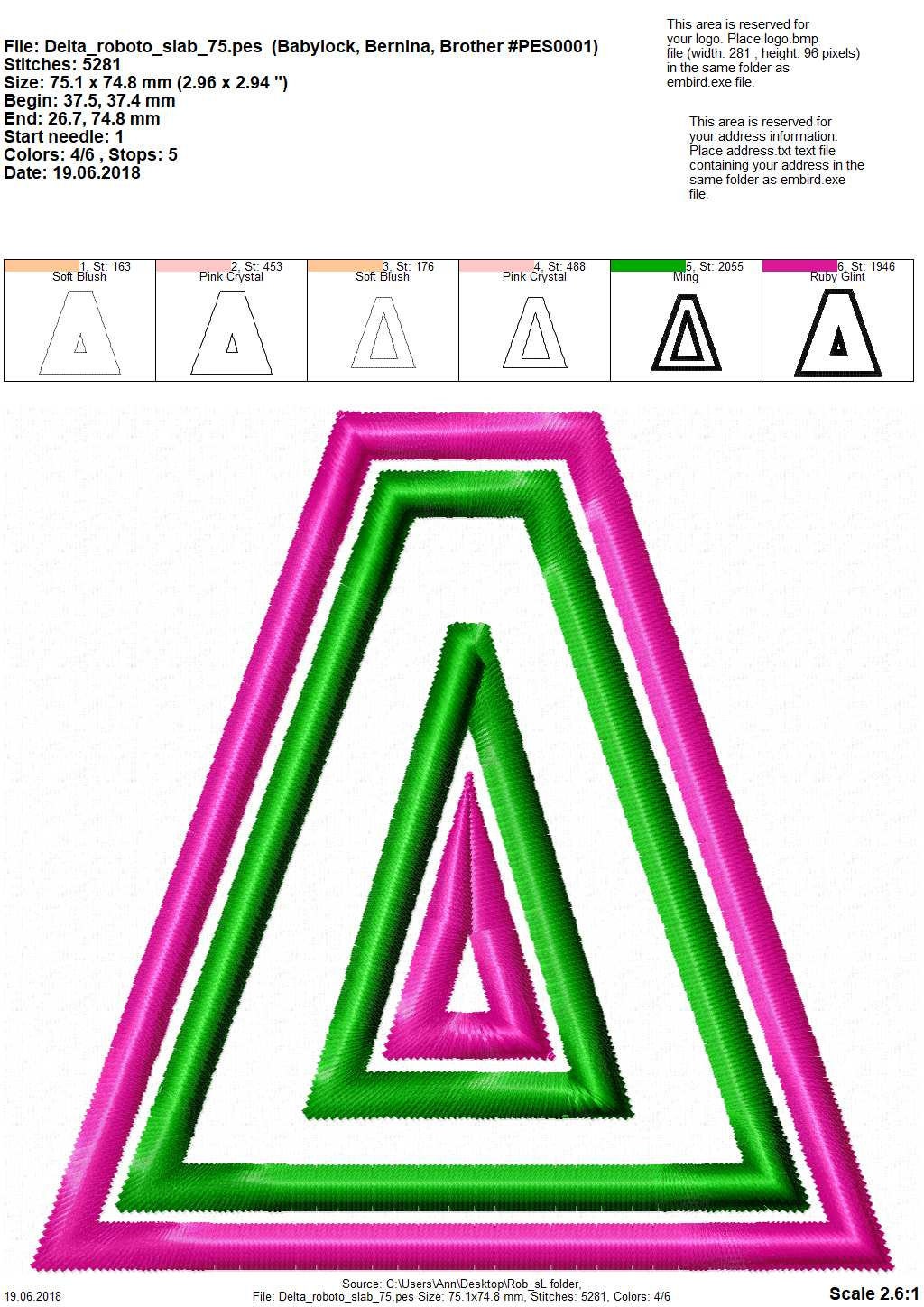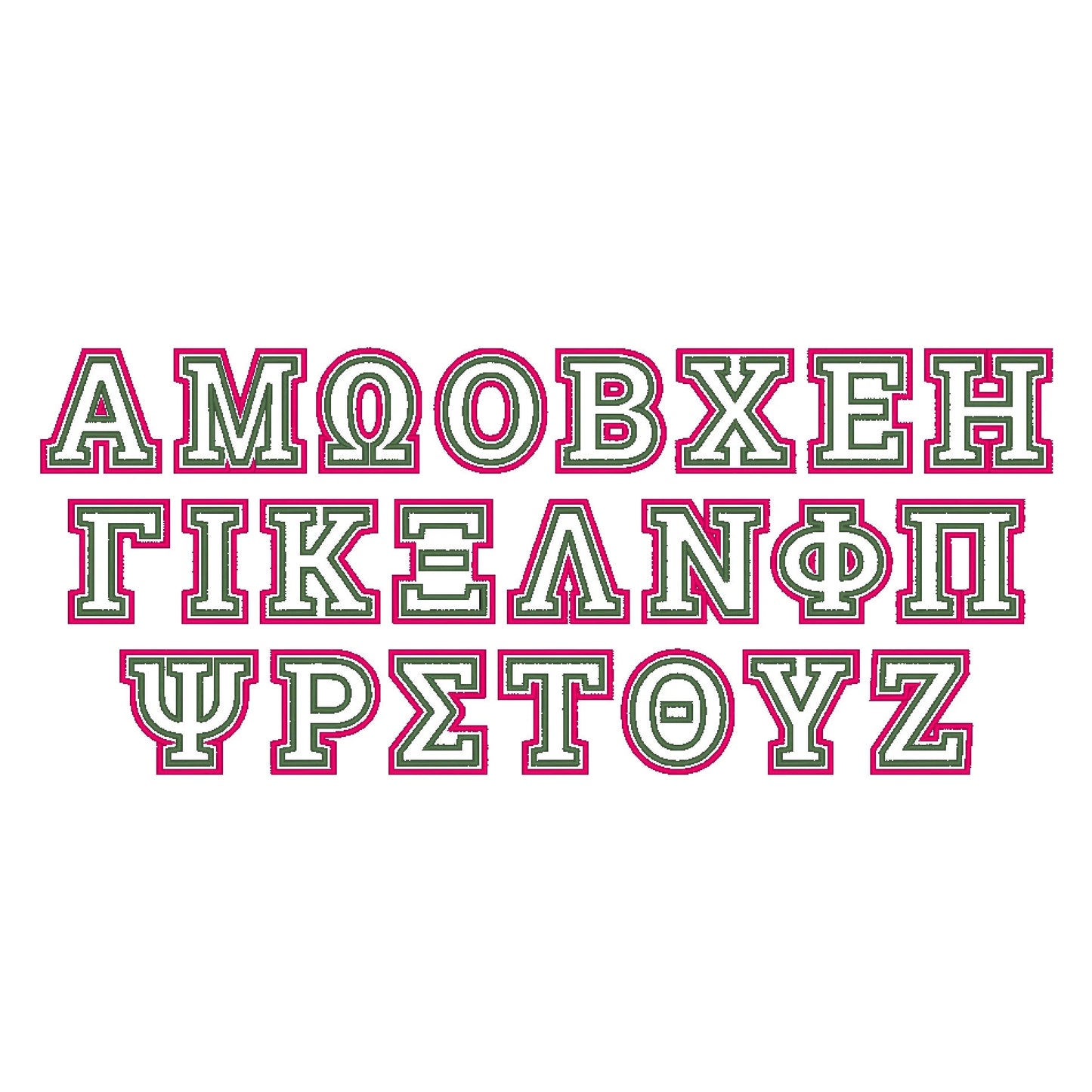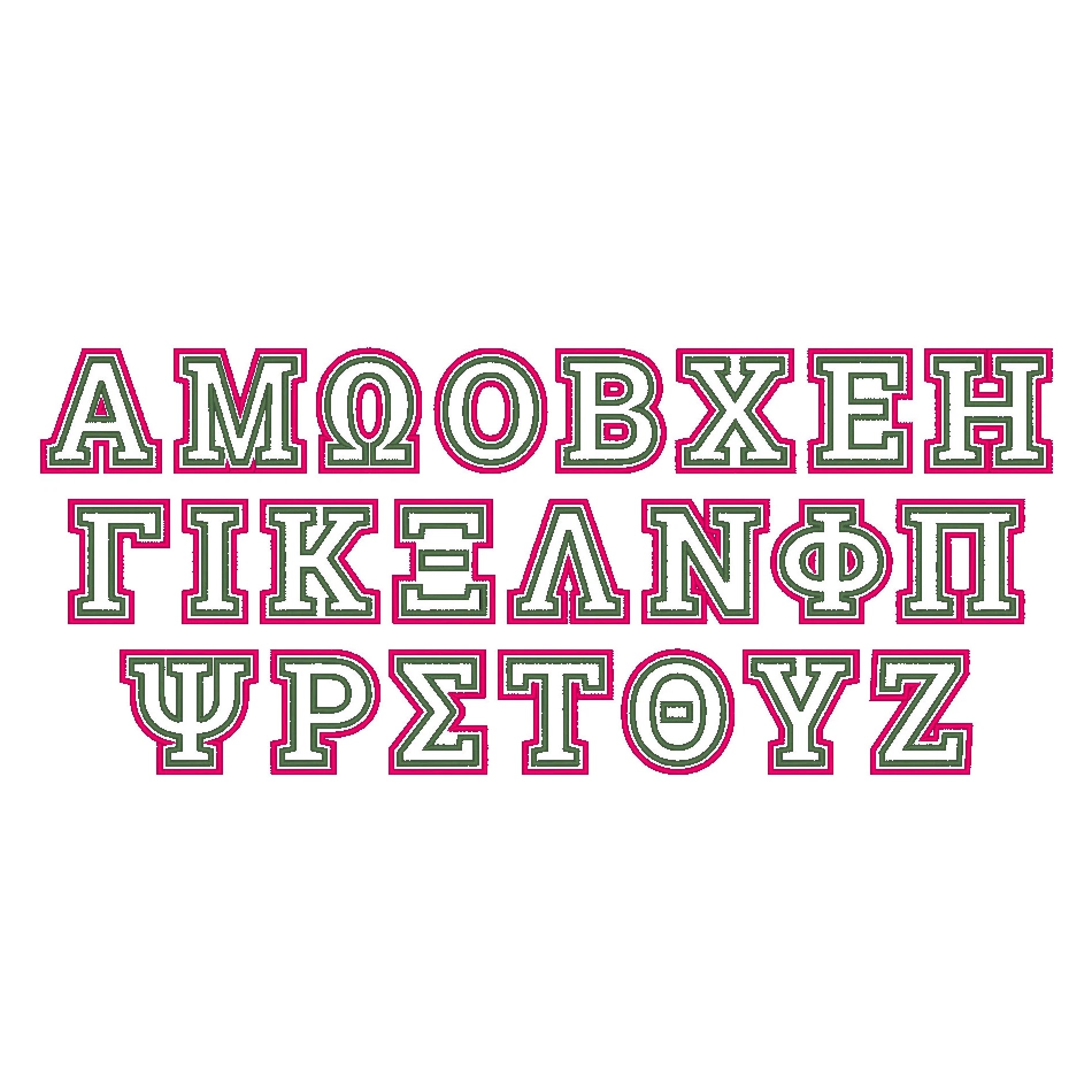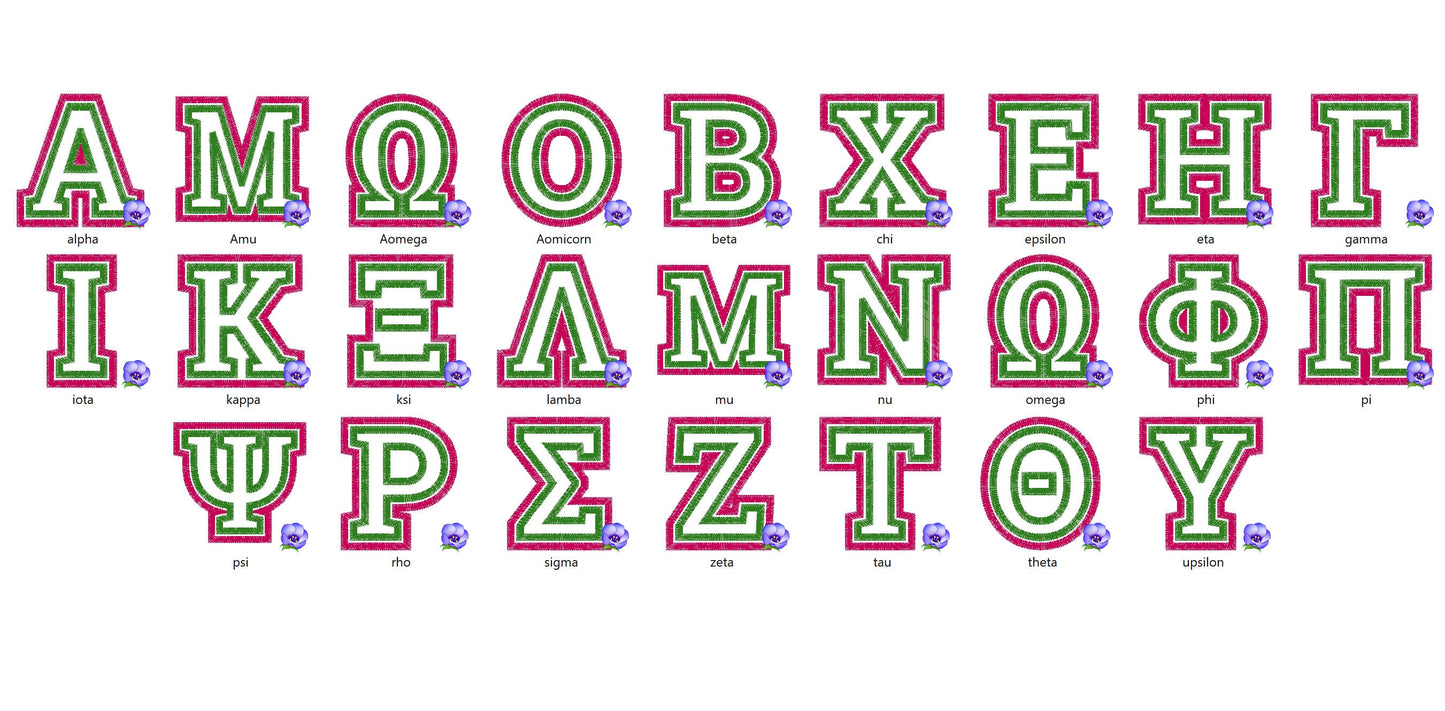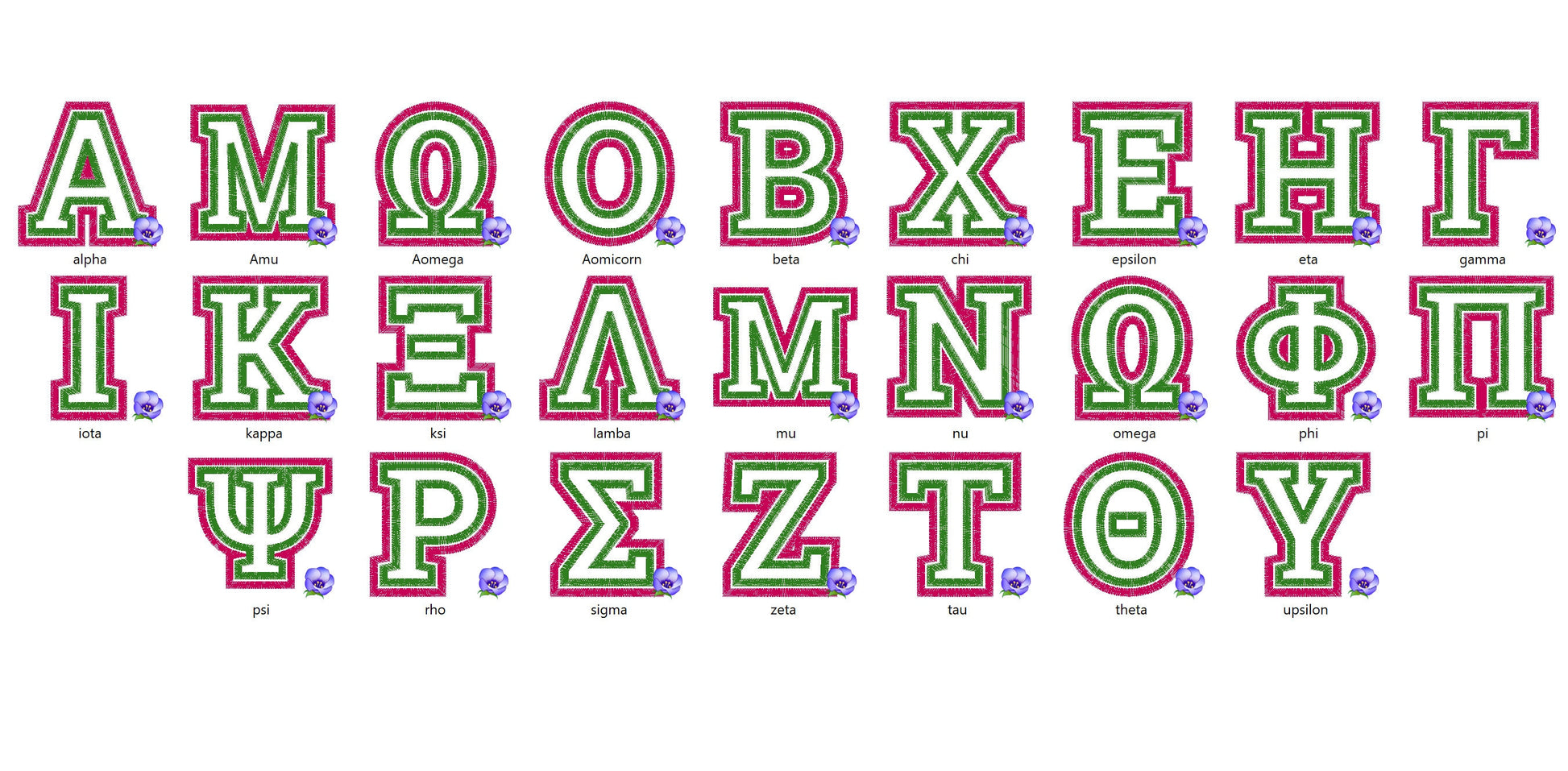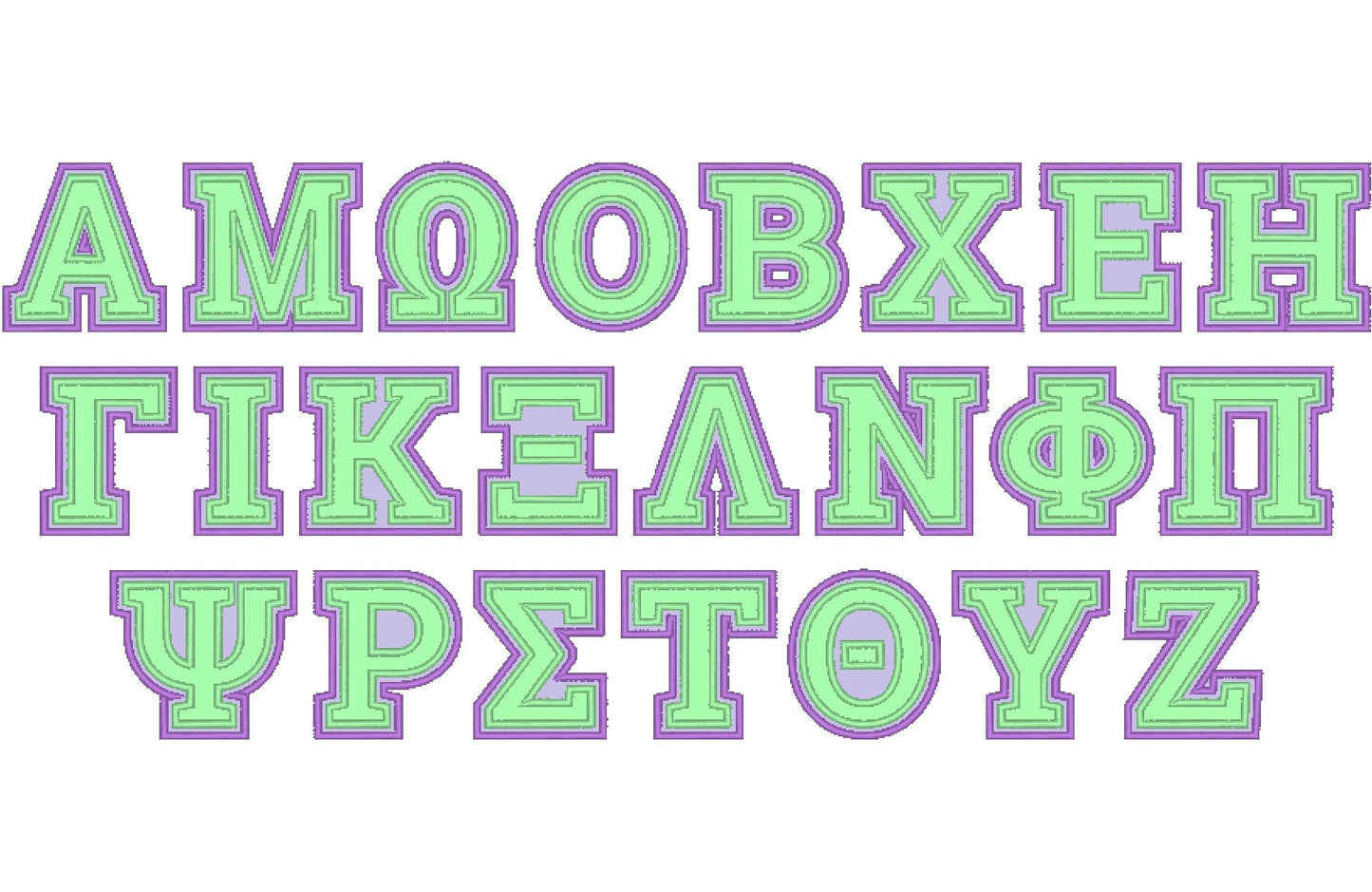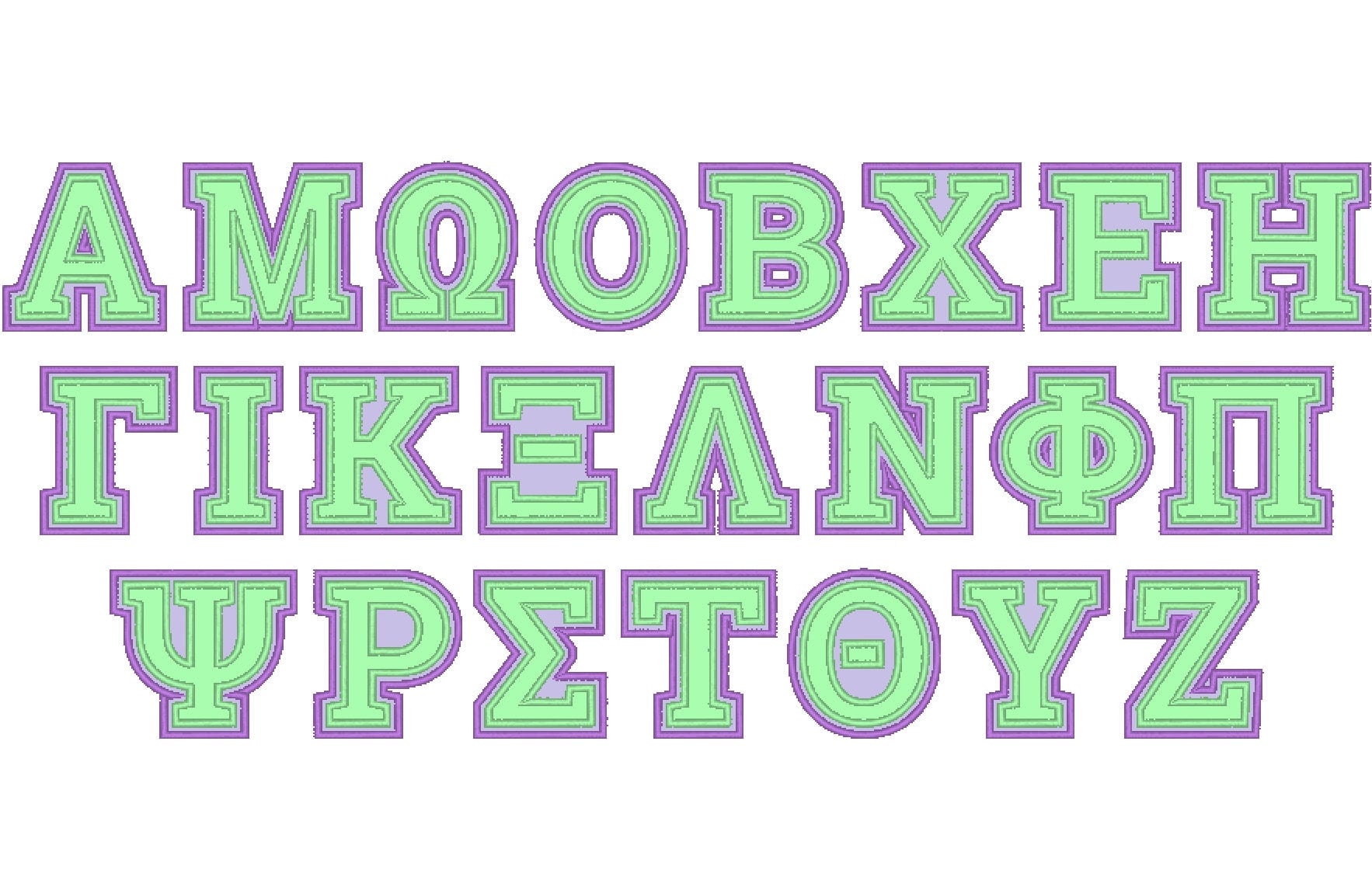
Greek Font Double Applique Layers
Or click to open the linkA Greek alphabet with two applique layers in two colors, for sorority and fraternity shirts, team jerseys and monograms.
The whole Greek alphabet in five sizes, about 3.3 to 5.6 inches tall. Each letter has two applique layers for a bold two-color look.
- Greek alphabet, double applique
- 5 sizes, about 3.3 to 5.6 in tall